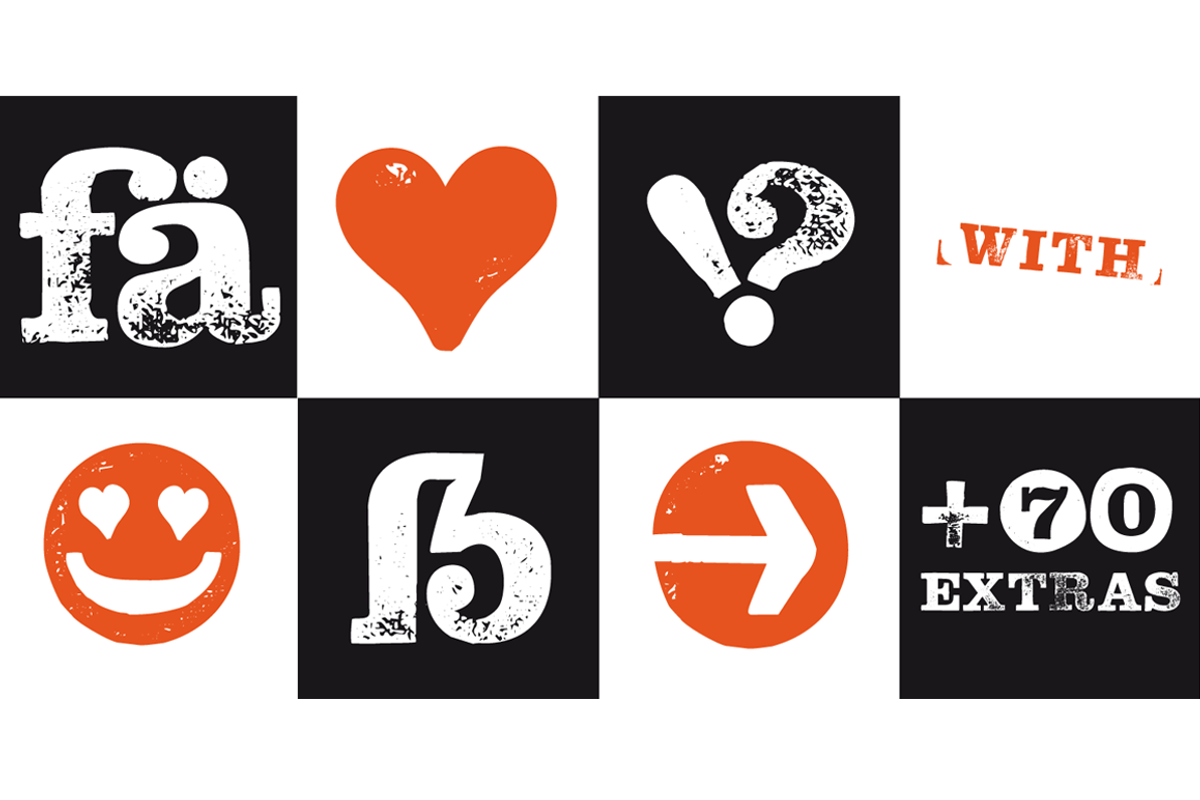
Please note, to use this font for commercial purposes, you must purchase the full version. Hand Slab Serif Rough is a bold and distinctive font that combines the strength of slab serifs with a rough, hand-crafted texture. Perfect for designs that need an authentic, rustic feel, this font works great for logos, posters, packaging, and branding projects. Whether you're creating a vintage-inspired logo or a gritty, industrial design, Hand Slab Serif Rough brings character and uniqueness to your work. Test it out and enjoy free download access for personal use. Experience the raw, bold style of Hand Slab Serif Rough Font Free Download before purchasing the commercial license. Add a rugged touch to your designs with this powerful font.